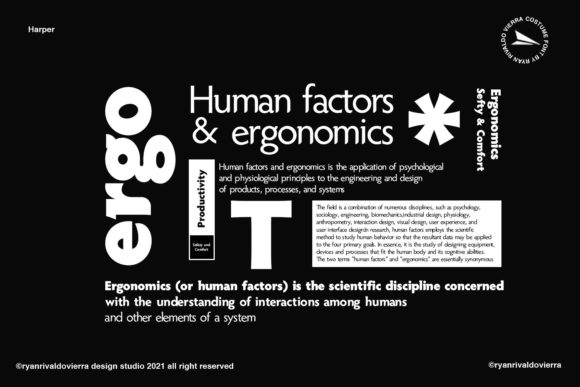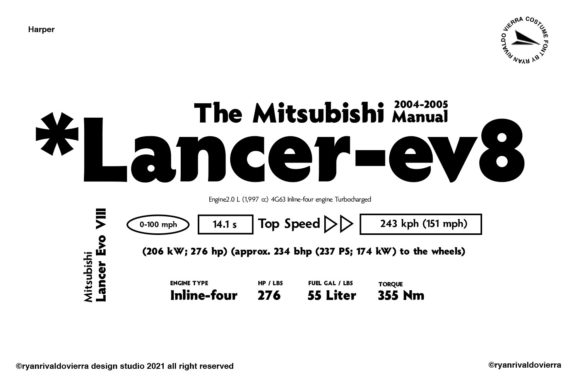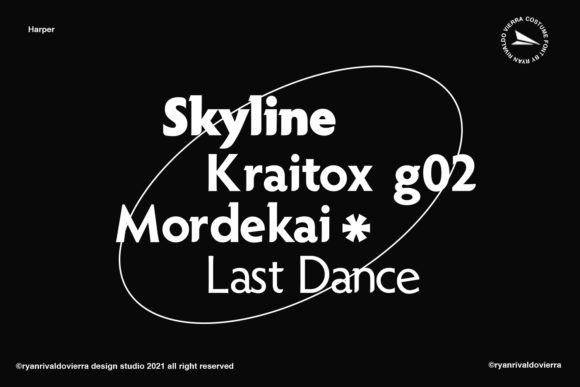
The Harper Font: A Game-Changer for Your Designs
I’ll never forget the time I was working on a project for a client who needed a bold, eye-catching font to make their poster stand out. I had tried countless fonts, but none seemed quite right. That was until I stumbled upon the Harper font. Its thick, versatile letters immediately caught my attention, and I knew I had found the perfect fit. In this article, I’ll share my experience with the Harper font, its features, and how to make the most of it in your designs.
An Honest Review of Harper Font
What I Love About Harper Font
- ✨ Versatility: Harper font is incredibly versatile and can be used for a wide range of design projects, from posters and flyers to logos and branding.
- ✅ Readability: The font’s thick letters make it highly readable, even at smaller sizes.
- 💥 Impact: Harper font is designed to make a statement, and it certainly delivers. Its bold letters are sure to grab attention and leave a lasting impression.
- 🎨 Customization: The font comes with a range of OpenType features, glyphs, and stylistic alternates, giving you plenty of options for customization.
While Harper font is an excellent choice for many design projects, there are a few things to keep in mind:
- 🤔 Limited use in body text: Due to its bold nature, Harper font may not be the best choice for body text. It’s better suited for headings, titles, and emphasis.
- ⚠️ Kerning issues: As with any font, you may need to adjust the kerning to ensure that the letters space correctly.
The Backstory of Harper Font
Harper font was designed by a team of typographers who wanted to create a bold, versatile font that would make a statement. Inspired by classic sans-serif fonts, they crafted Harper font to be a modern take on traditional typography. With its thick letters and range of OpenType features, Harper font is perfect for designers who want to add a touch of sophistication to their work.
| Font Name | Harper Font |
| Author | Ryan Vierra |
Q: What is Harper font best used for?
A: Harper font is best used for designs that require a bold, eye-catching font, such as posters, flyers, logos, and branding.
Q: Can I use Harper font for body text?
A: While Harper font can be used for body text, it’s not recommended. Its bold nature makes it better suited for headings, titles, and emphasis.
Q: Is Harper font available in different styles?
A: Yes, Harper font comes in a range of styles, including regular, bold, and italic.